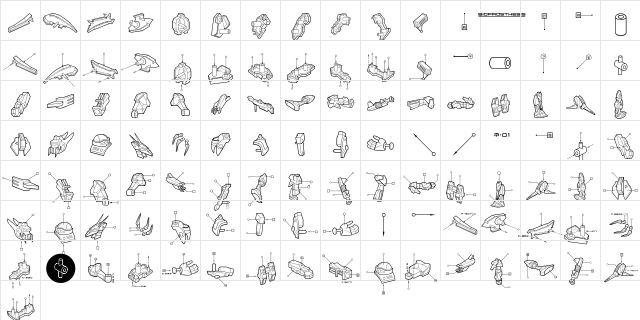
Bioprosthesis Regular
Design Context for Bioprosthesis Typeface
Bioprosthesis is a composed and adaptable typeface that performs quietly and consistently across a wide range of design contexts.